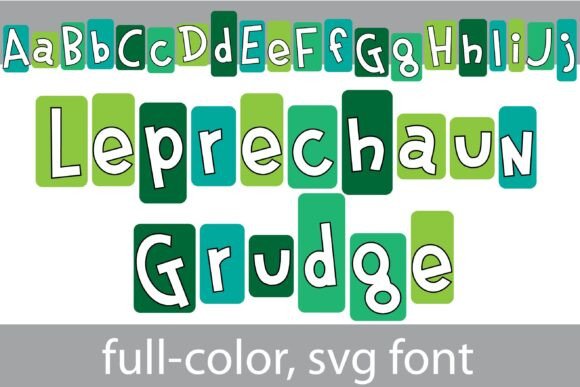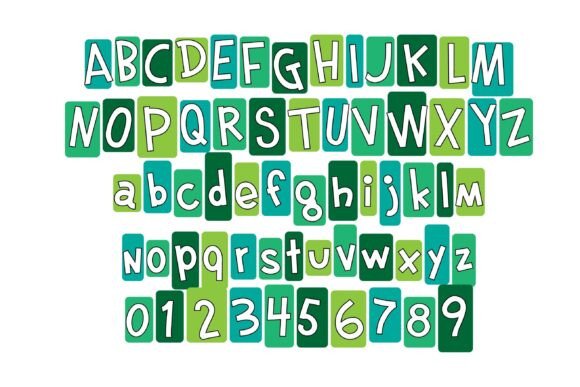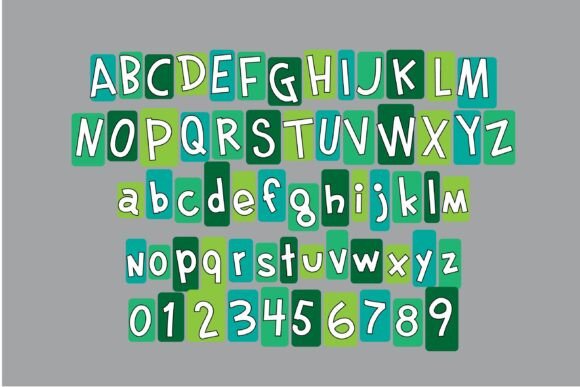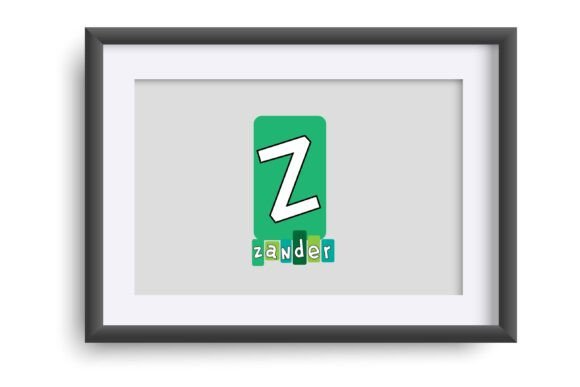
Leprechaun Grudge Font
About the Leprechaun Grudge Font
Explore the possibilities with Leprechaun Grudge Font, a font that offers both beauty and functionality. This full-color font features a child-like font on blocks of green. There is an alt version you can access through your system’s character map that contains additional colors of all the letters. This font works best for titles, displays, posters and more. Please note color fonts will show as black in non compatible programs. This font type is compatible with Silhouette Studio. Full-color SVG fonts are the perfect way to add a touch of personality to your designs. With a full range of colors and styles to choose from, you can create anything from simple text logos to complex illustrations.